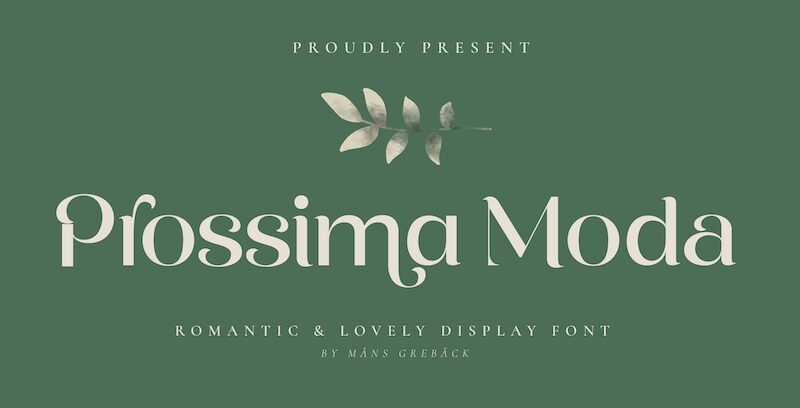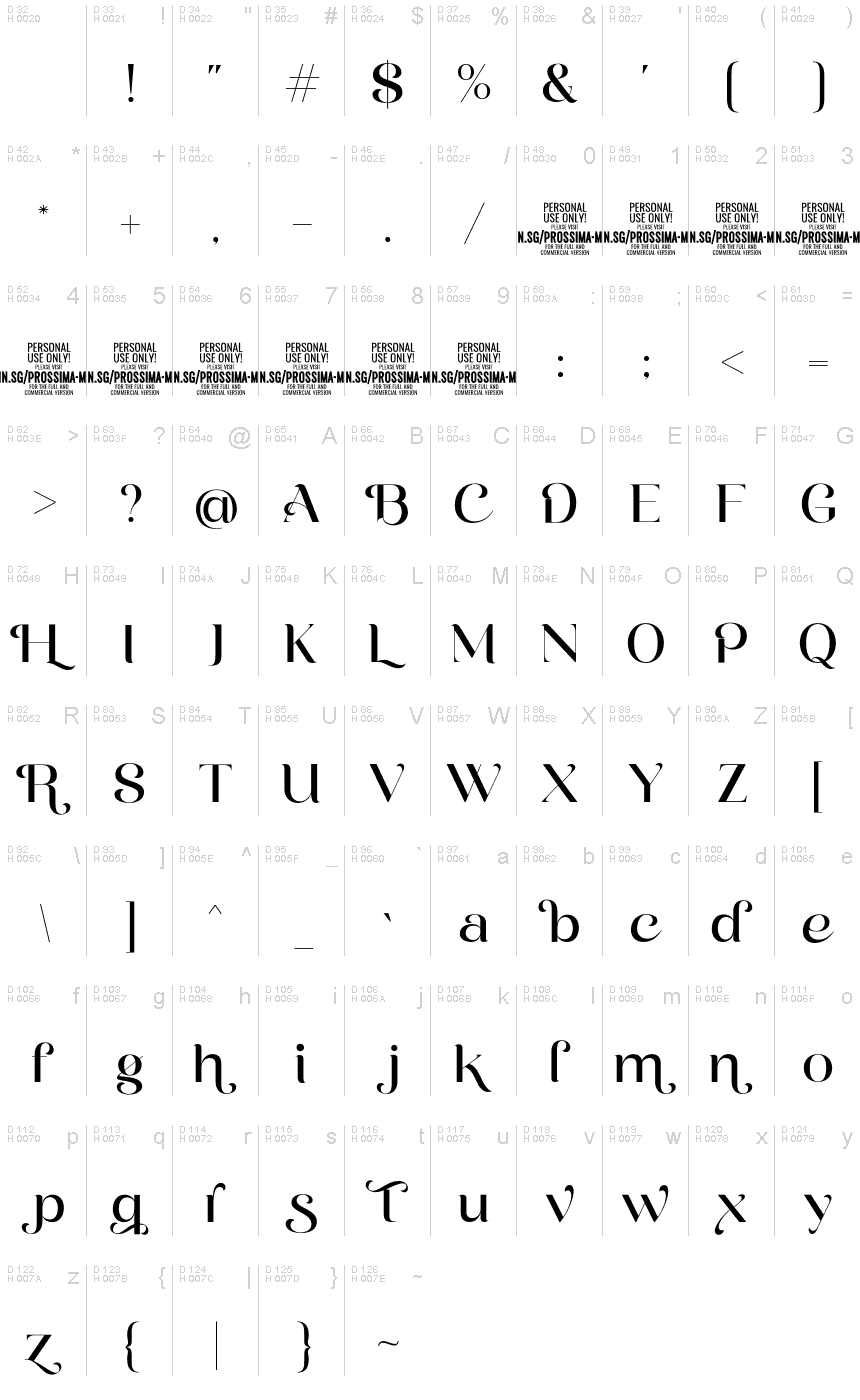
Prossima Swash, a captivating romantic serif font designed by Mans Greback, adds an elegant touch to any project. With its graceful curves and decorative swashes, this font is perfect for wedding invitations, love letters, and heartfelt poetry. The Prossima Swash typeface effortlessly blends traditional charm with modern sophistication, making it an excellent choice for branding luxury boutiques or high-end fashion magazines. Its versatility also lends itself well to book covers of historical fiction novels or vintage-themed designs, evoking a sense of nostalgia. Elevate your projects with Prossima Swash's timeless beauty and refined aesthetic.
Prossima Moda is a font that radiates modernity and fashion-forward style. Its sleek and contemporary design evokes a sense of sophistication and elegance, while its contrasting lines add a touch of visual interest and intrigue.